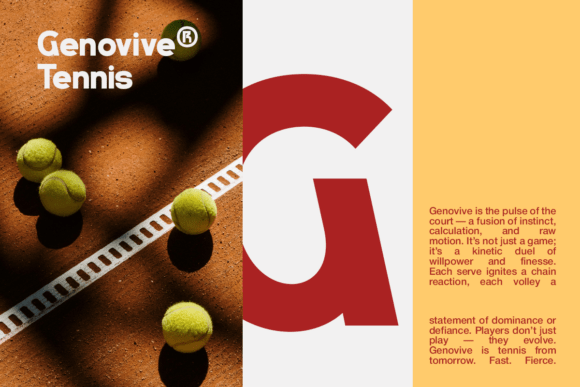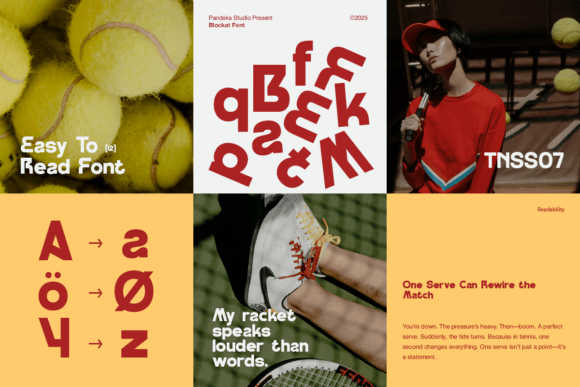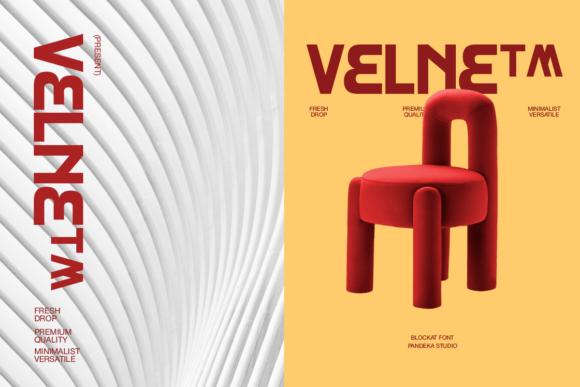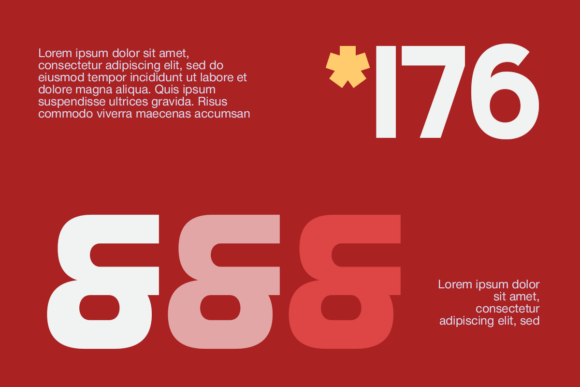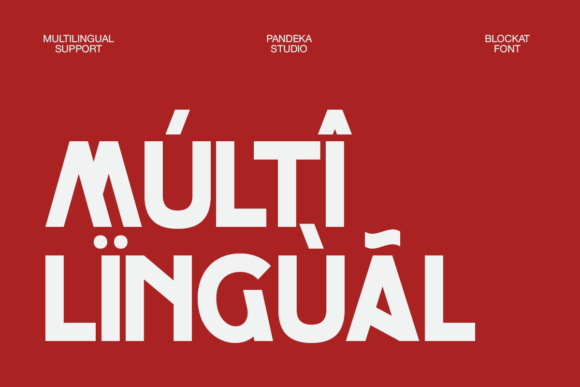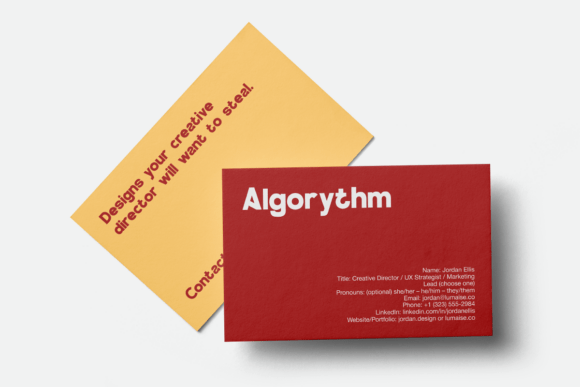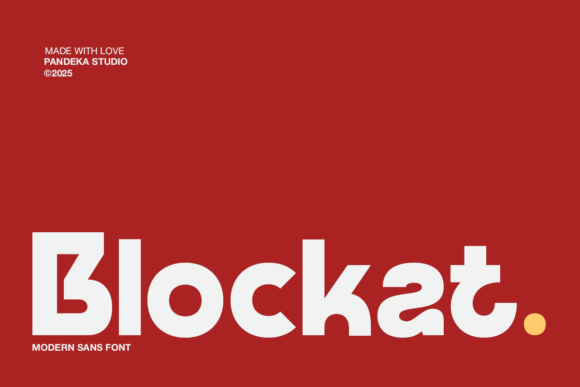
Introducing Blockat Font: The Ultimate Geometric Display Typeface for Modern Brands
In the world of typography, a well-designed font can make all the difference in creating a lasting impression. For brands looking to establish a strong visual identity, Blockat Font is the perfect solution. This bold and modern geometric display typeface is specifically designed for corporate identity, branding, and impactful communication. With its clean shapes and strong presence, Blockat is ideal for logos, posters, digital media, packaging, and business-oriented projects that require clarity and confidence.
Key Features of Blockat Font
Blockat Font boasts a range of features that make it an excellent choice for designers and crafters. Some of its key characteristics include:
- Geometric Design: Blockat’s geometric design ensures a sleek and professional look, perfect for modern brands.
- Clean Shapes: The font’s clean shapes and strong presence make it ideal for logos, posters, and digital media.
- Single Regular Style: With only one Regular style, Blockat delivers versatility in both print and digital formats.
- Multilingual Support: The font includes full multilingual support, ensuring global usability while maintaining a sleek and professional look.
- Comprehensive Character Set: Blockat features uppercase and lowercase letters, numbers, punctuation, and special characters.
Use Cases for Blockat Font
Blockat Font is an incredibly versatile typeface that can be used in a variety of contexts. Some of the most suitable use cases include:
- Logo Design: Blockat’s bold and modern design makes it perfect for creating memorable logos that leave a lasting impression.
- Branding and Identity: The font’s clean shapes and strong presence ensure a professional look that’s ideal for branding and identity projects.
- Posters and Flyers: Blockat’s geometric design and bold style make it perfect for creating eye-catching posters and flyers.
- Digital Media: The font’s sleek and professional look ensures it works well in digital formats, such as social media graphics and website headers.
- Packaging Design: Blockat’s clean shapes and strong presence make it an excellent choice for packaging design, particularly for products that require a modern and professional look.
The Benefits of Using Blockat Font
Blockat Font offers a range of benefits for designers and crafters, including:
- Improved Brand Recognition: A well-designed font like Blockat can help establish a strong visual identity and improve brand recognition.
- Increased Versatility: The font’s single Regular style and comprehensive character set make it incredibly versatile and adaptable to different contexts.
- Enhanced Professionalism: Blockat’s sleek and professional look ensures a high level of professionalism, perfect for businesses and brands.
- Easy to Read: The font’s clean shapes and strong presence make it easy to read, even at smaller sizes.
Design and Crafting with Blockat Font
Blockat Font is an excellent choice for designers and crafters looking to create modern and professional designs. Some tips for working with Blockat include:
- Experiment with Different Sizes: Blockat’s bold style works well at a range of sizes, from large headings to smaller body text.
- Pair with Other Fonts: The font’s clean shapes and strong presence make it easy to pair with other fonts, creating a unique and visually appealing design.
- Use in Combination with Images: Blockat’s geometric design works well in combination with images, creating a visually appealing and professional design.
In conclusion, Blockat Font is a bold and modern geometric display typeface that’s perfect for brands looking to establish a strong visual identity. With its clean shapes, strong presence, and comprehensive character set, Blockat is an excellent choice for a range of design projects, from logos and branding to posters and digital media.